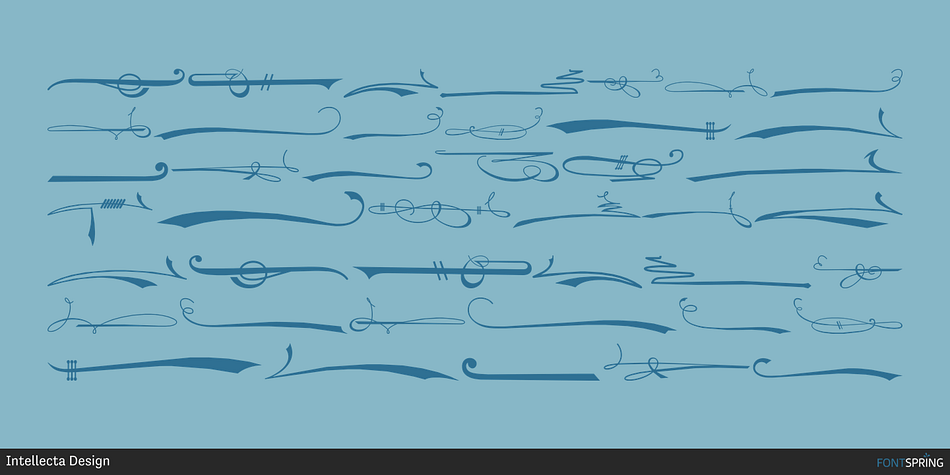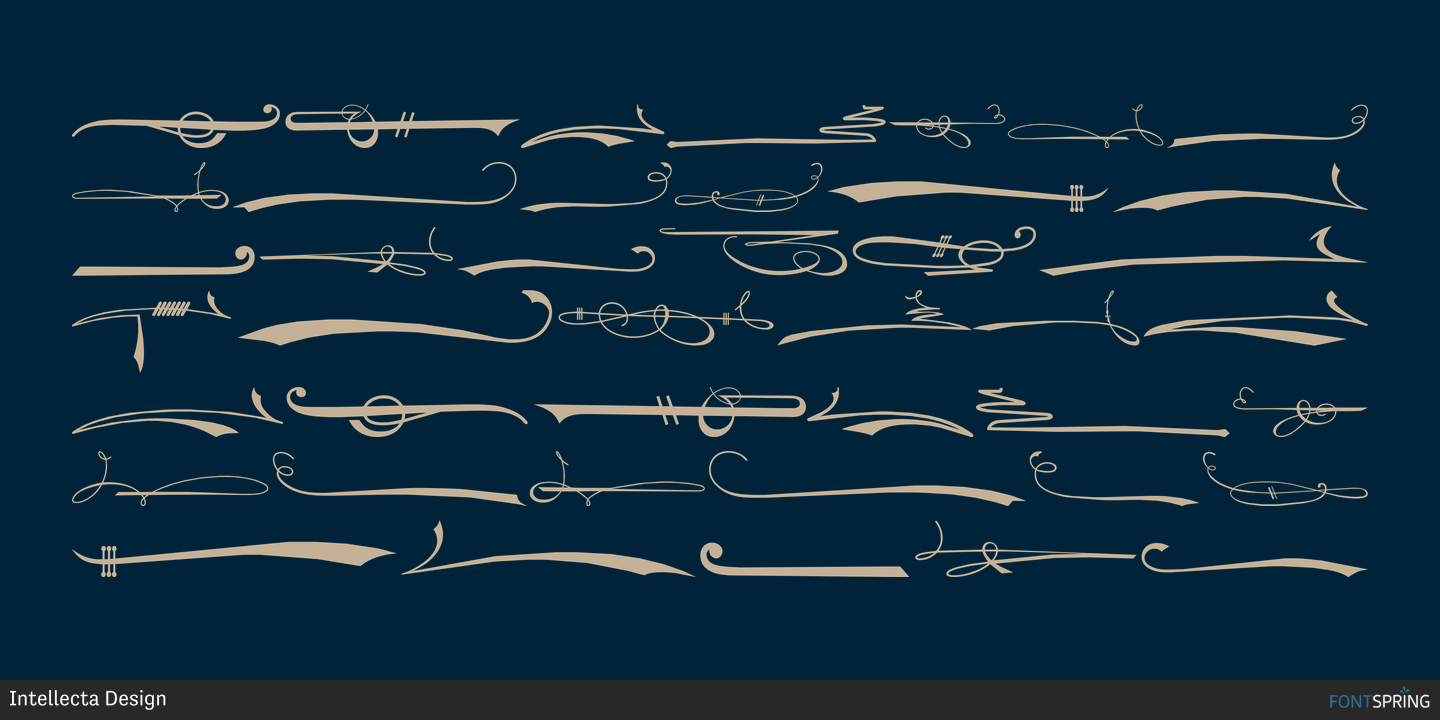
Gans Rasgos Escritura
Designed by Paulo W, Gans Rasgos Escritura is a dingbat font family published by Intellecta Design.
Gans Rasgos Escritura shapes (108 tails) was selected and freely interpreted from the vignettes catalog by Fundicion Gans published in 1920.You can combine these ornaments with your favorite fonts. We suggests the use of Pretoria Gross, an Intellecta best-seller